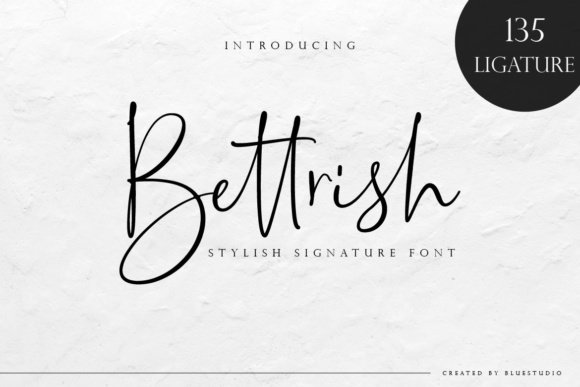
Have you ever stared at a blank canvas, trying to bring your design to life, only to be stuck on the perfect font? We’ve all been there. It’s that moment when the words start flowing, and the ideas begin to pour out, but the font just doesn’t seem to fit. That’s where the Bettrish Font comes in – a stylish signature font that adds a touch of elegance and sophistication to any design project.
This beautiful typographic harmony is not just a pretty face; it’s a valuable tool for designers looking to elevate their work. Whether you’re working on a branding project, creating a website, or designing a marketing campaign, the Bettrish Font is sure to impress. Its versatility and refined style make it a must-have for any design enthusiast.
Bettrish Font Key Features
• Font Family: Bettrish
• Unique Characteristics: Includes 7 weights, each with 10 opentype features, and 8 ligatures, providing high flexibility for designers and typographers
Bettrish Font Review
Overall, I’d say the Bettrish Font has its moments. Here are some things that work well: ✨
• The font’s elegant and modern feel makes it suitable for a wide range of designs, from luxury brands to creative projects.
• The script-style letters are beautifully connected, which adds to the font’s sophisticated look.
• The font’s versatility allows it to work well in both digital and print formats.
However, I do have some concerns: ⚠️
• The font might be too ornate for some designs, which could make it difficult to read at smaller sizes.
• The script-style letters can be challenging to customize, which may limit the font’s flexibility.
In conclusion, the Bettrish Font is a beautiful and elegant font that can add a touch of sophistication to any design. However, its limitations and restrictive license terms mean that it may not be the best choice for every project.
Tips for Getting the Most Out of Bettrish Font
Experiment with different font sizes and styles to create a visually appealing design. Pair Bettrish Font with other fonts to add depth and interest to your design.
Bettrish Font is ideal for creating elegant and sophisticated designs, such as:
• Wedding invitations and stationery
• Business cards and brochures
• Book covers and magazine layouts
Alternatives to Bettrish Font
Great Vibes is a modern, cursive script font suitable for creative and artistic projects. It features a fluid, connected feel that makes it perfect for titles, headings, and short paragraphs.
Comparison: Great Vibes has a more elegant and refined feel compared to Bettrish Font, which has a bolder and more playful touch. Great Vibes is ideal for projects that require a more sophisticated and luxurious look.
Carolyna Pro is a elegant, modern script font that features a beautiful blend of calligraphy and digital design. It’s suitable for a wide range of projects, from fashion and beauty to wedding invitations and event branding.
Comparison: Carolyna Pro has a more refined and polished feel compared to Bettrish Font, which has a more casual and laid-back touch. Carolyna Pro is ideal for projects that require a high-end and sophisticated look.
Alex Brush is a elegant, handwritten script font that features a beautiful blend of calligraphy and digital design. It’s suitable for a wide range of projects, from fashion and beauty to wedding invitations and event branding.
Comparison: Alex Brush has a more delicate and refined feel compared to Bettrish Font, which has a bolder and more playful touch. Alex Brush is ideal for projects that require a soft and romantic look.
Oranienbaum
Oranienbaum is a elegant, modern script font that features a beautiful blend of calligraphy and digital design. It’s suitable for a wide range of projects, from fashion and beauty to wedding invitations and event branding.